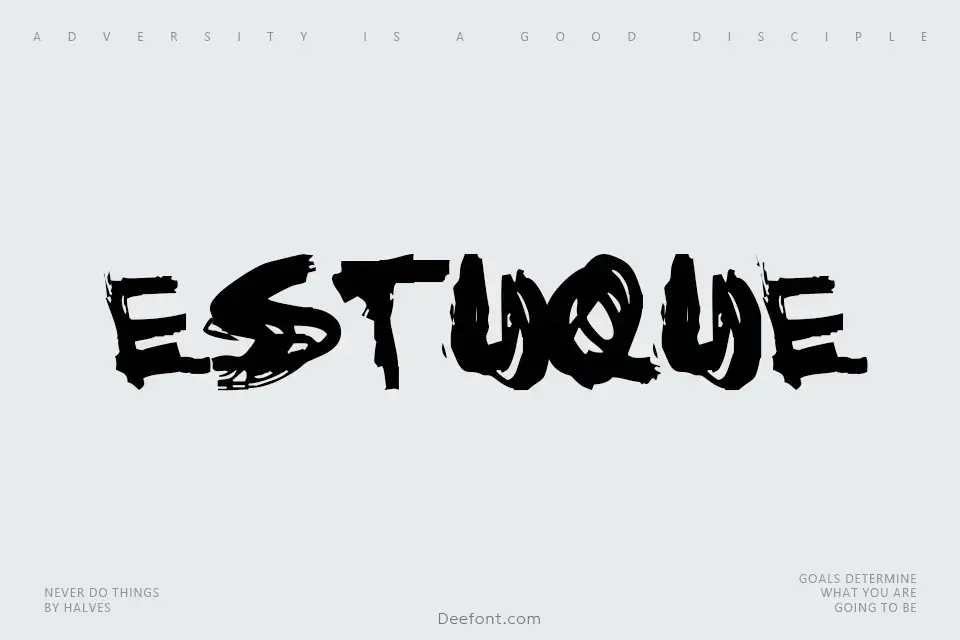
Estuque Font
Estuque is a striking grunge-inspired display typeface characterized by its rough, distressed strokes and hand-painted aesthetic. With uneven letter thickness and jagged edges, it evokes raw energy and rebellion, making it exceptionally well-suited for edgy logos, punk posters, bold headlines, and any design demanding powerful visual impact. The scratchy, trash-style appearance delivers an authentic urban feel perfect for rebellious branding, horror movie titles, and contemporary display work.